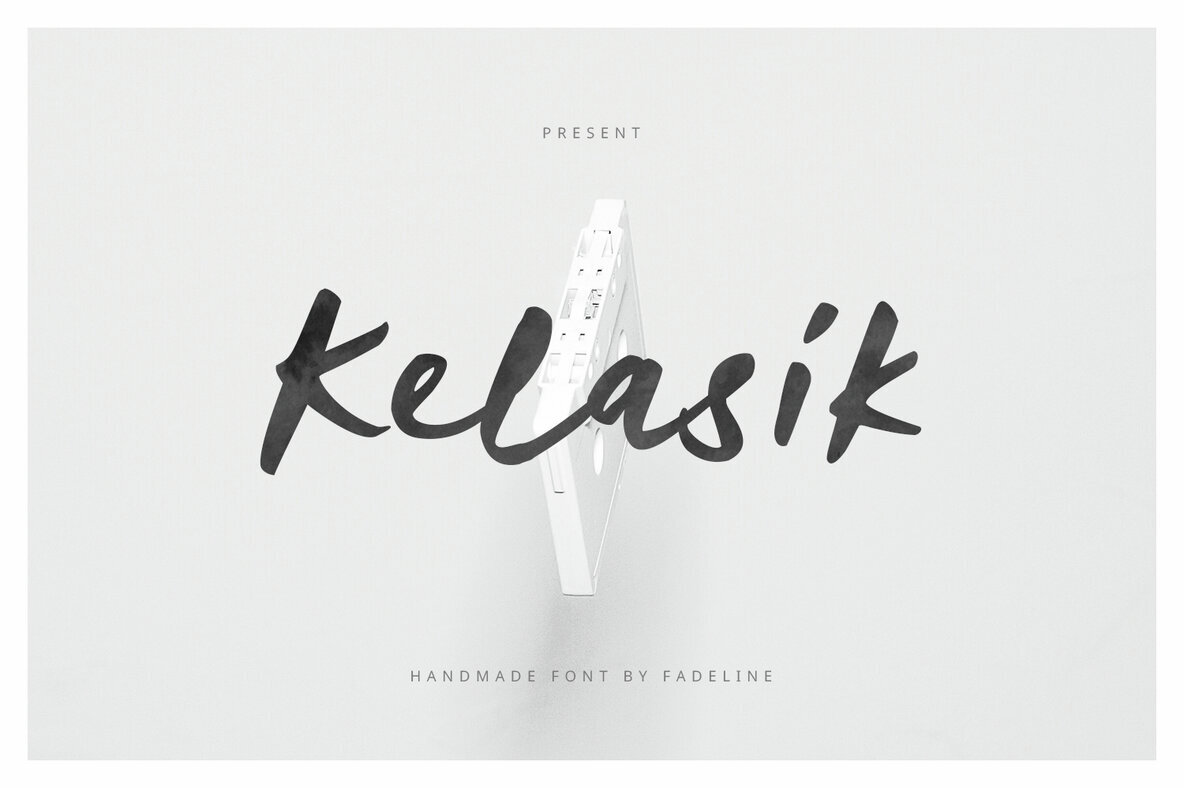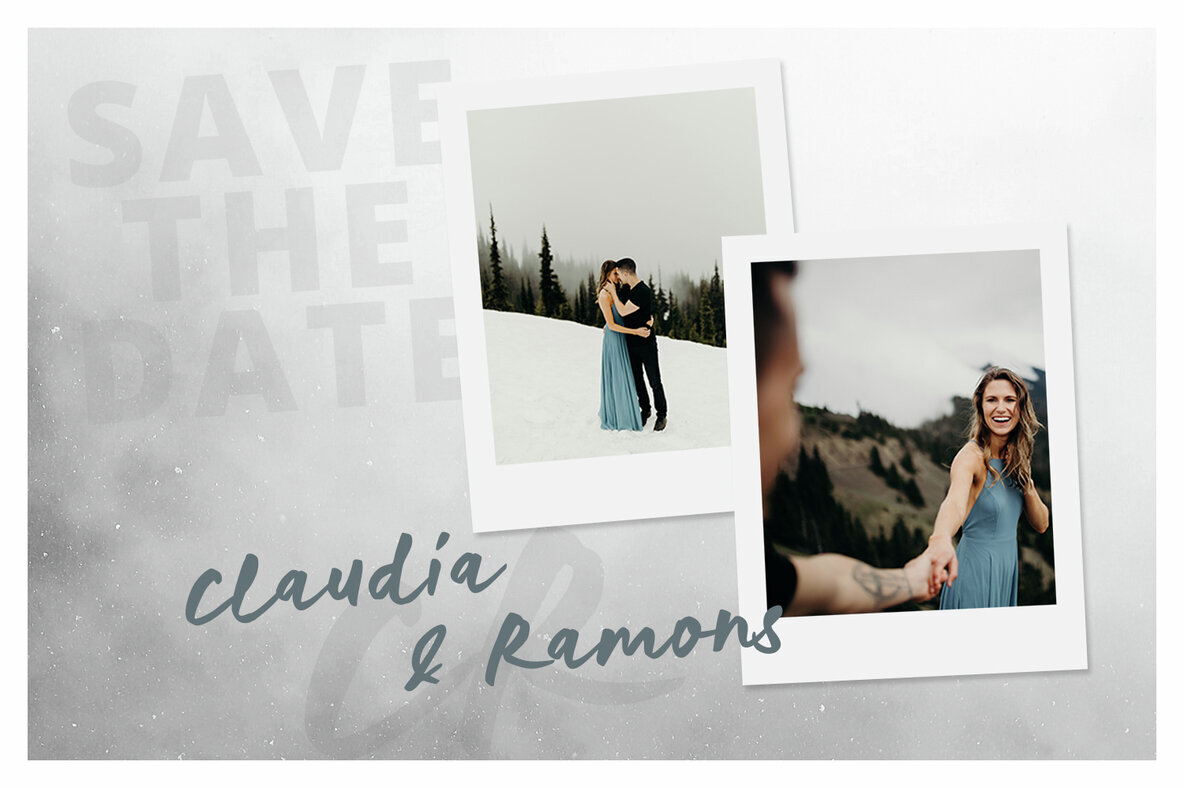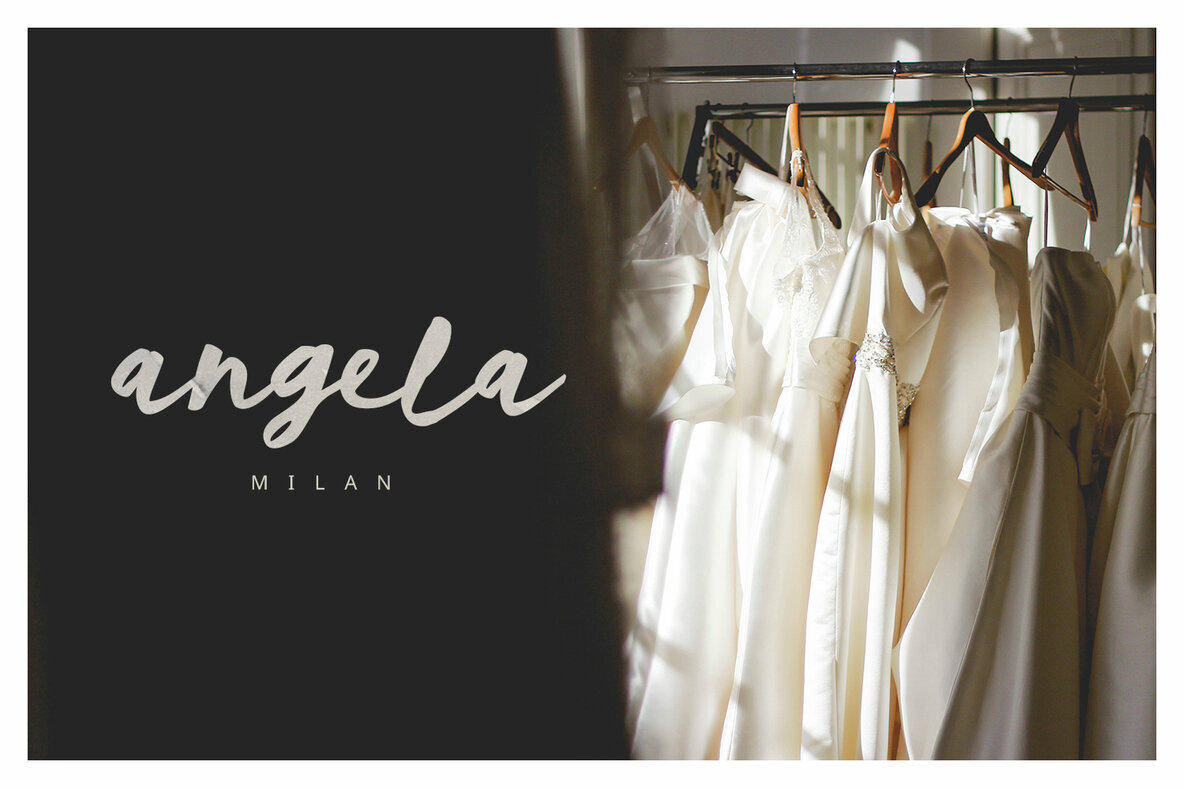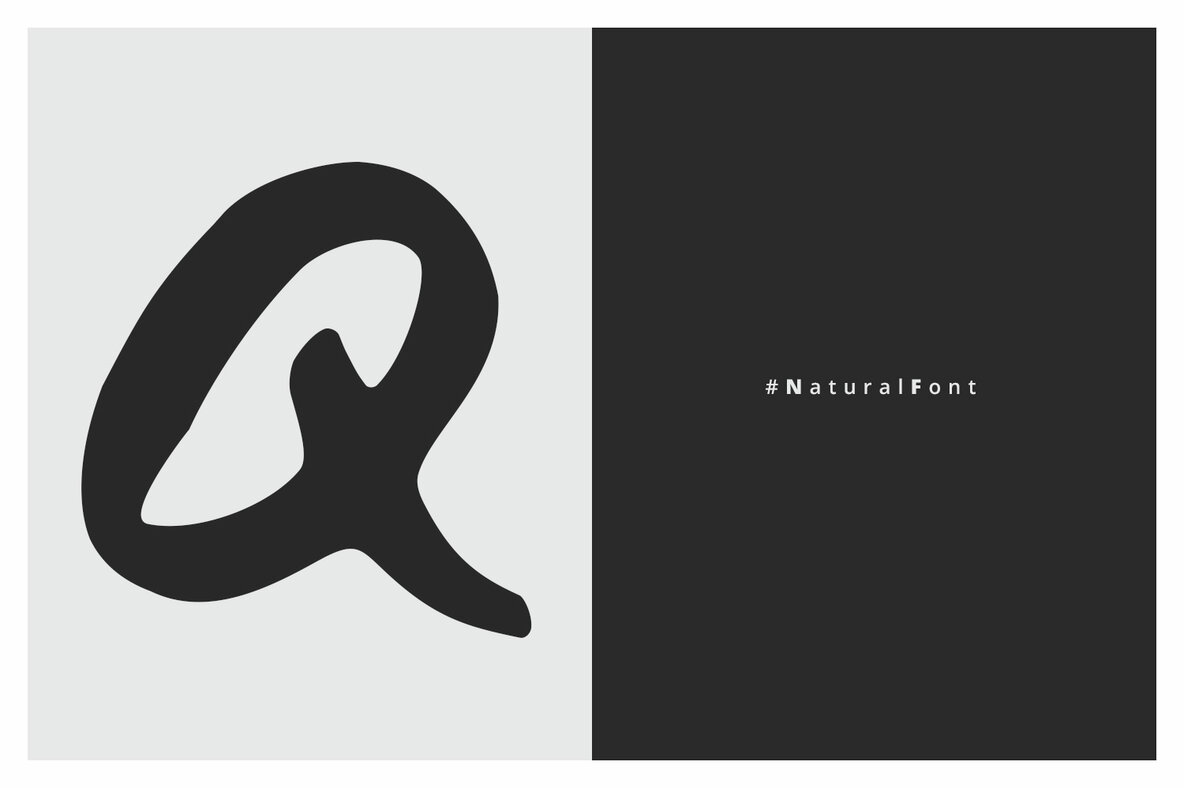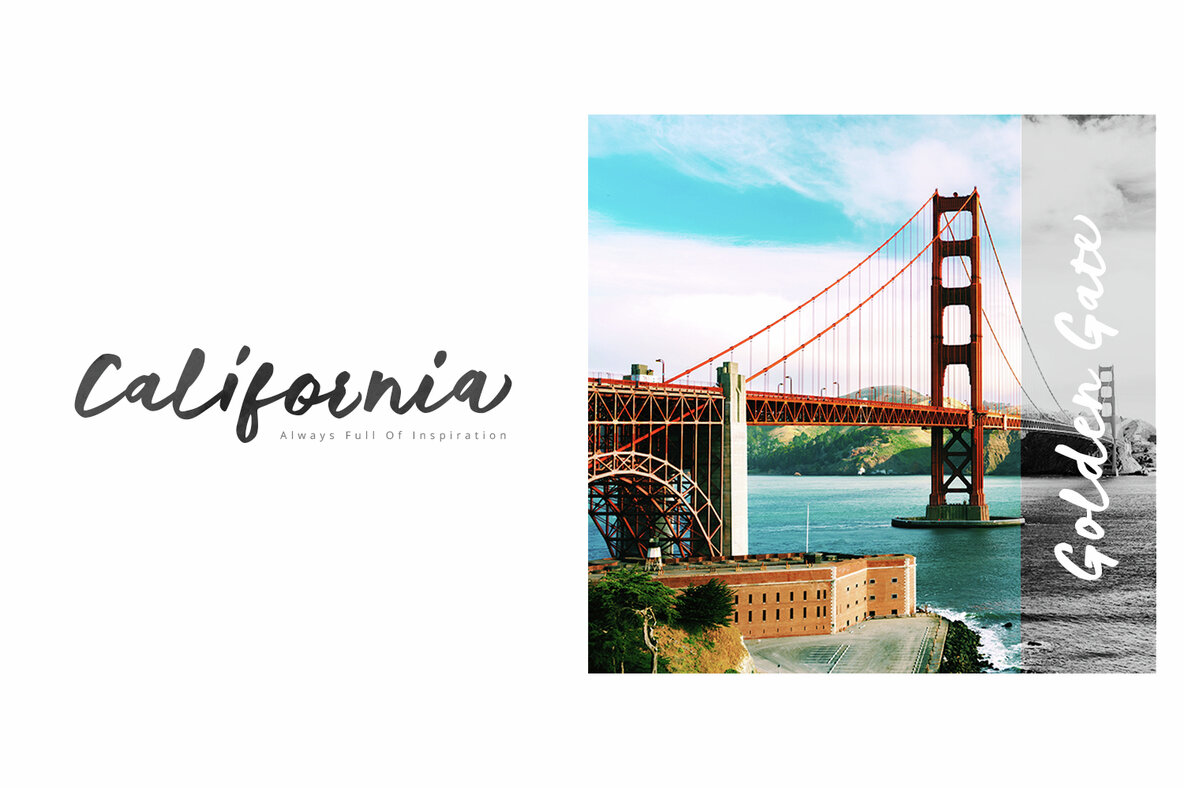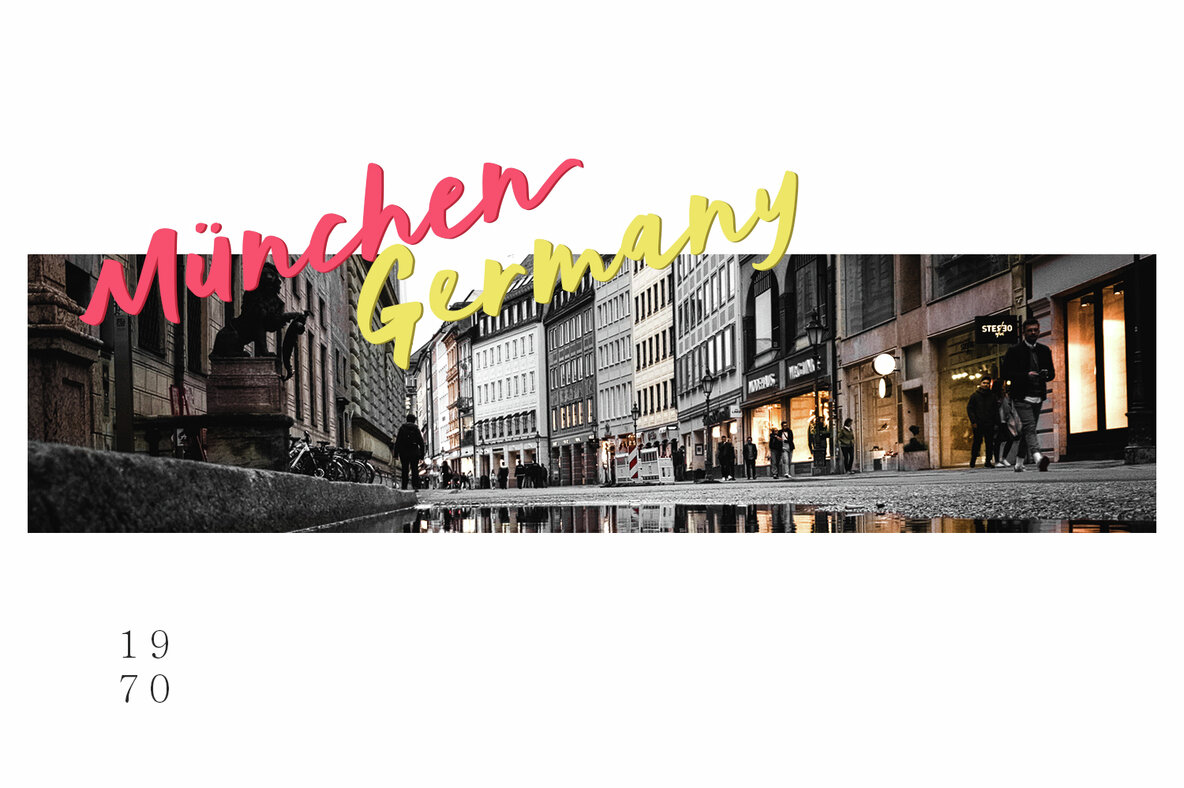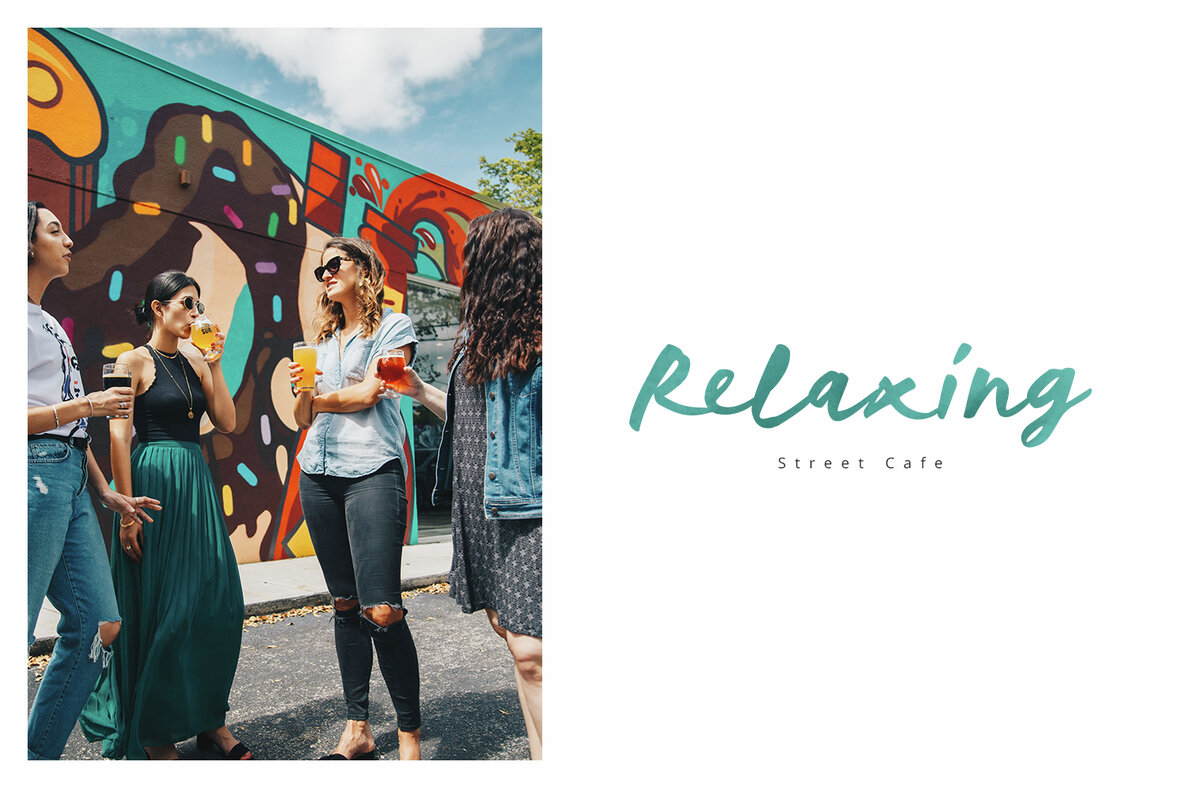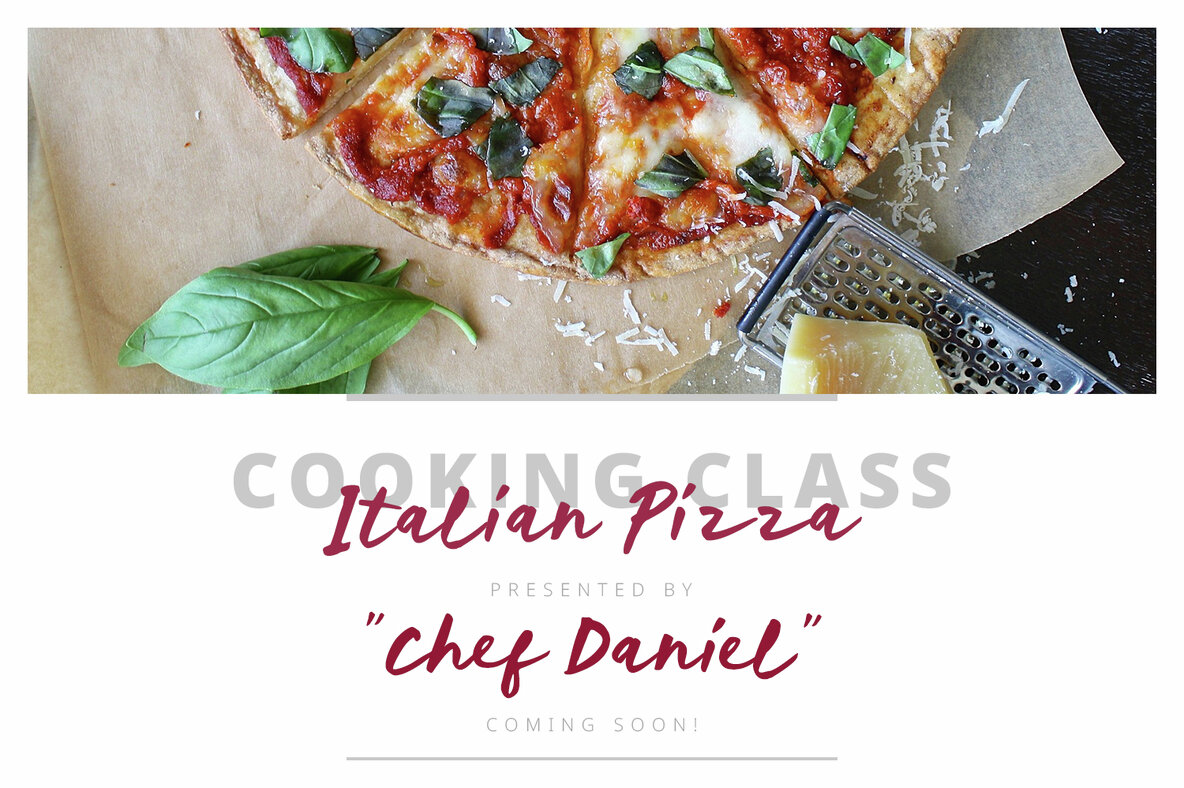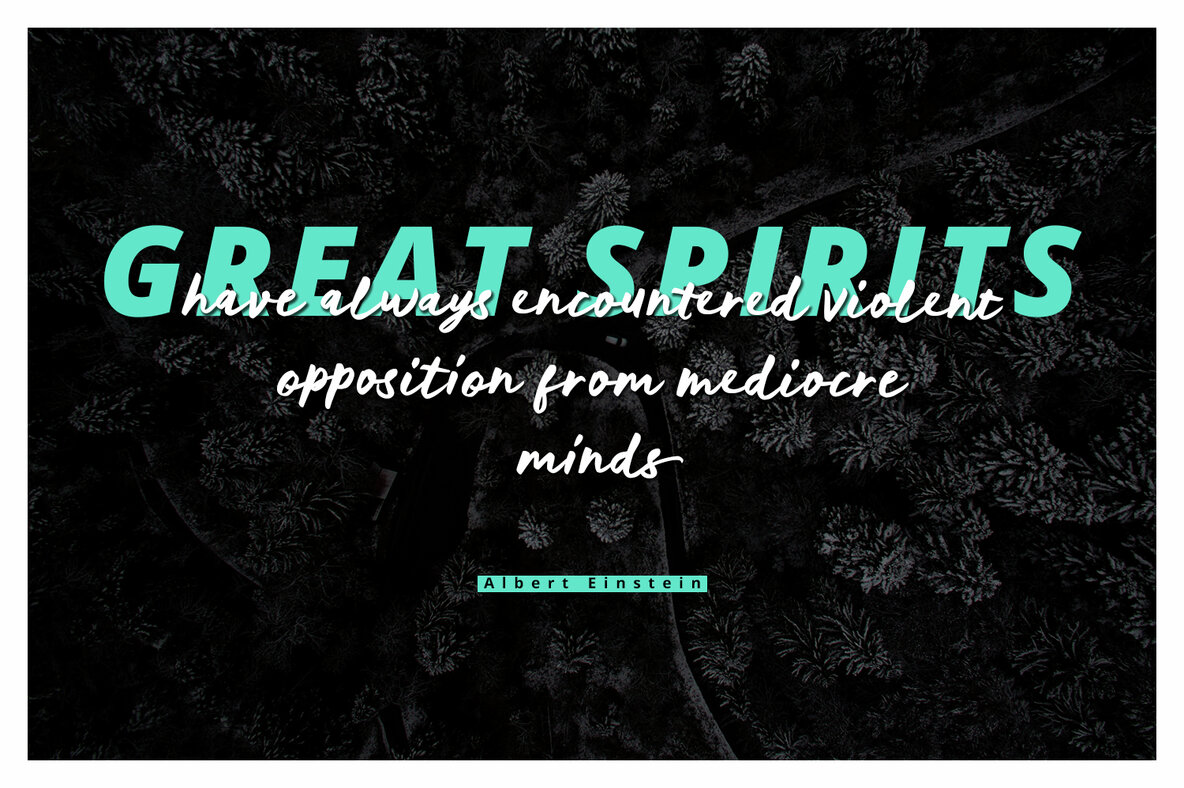
Kelasik Handmade Font
Kelasik Handmade
Discover the charm of Kelasik Script, a beautifully handcrafted typeface that combines natural grace with a modern touch. Designed with meticulous attention to detail, this font promises to elevate your design projects with its sweet, simple lines and effortless elegance. Experience the flexibility and uniqueness of Kelasik Script in your next project and let its organic allure captivate your audience.Kelasik Script: Natural Elegance in a Handmade Font
Versatile Style and Pairing Options